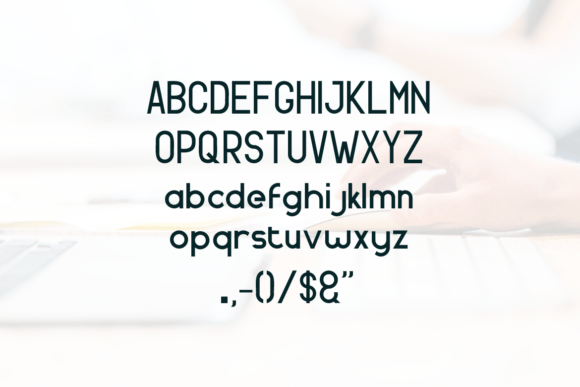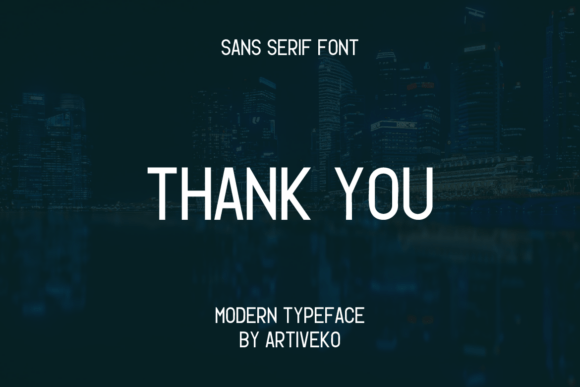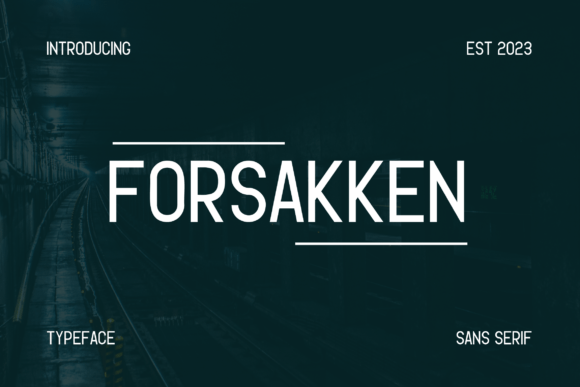
Forsakken Font: Unleash Drama and Boldness in Your Designs
In the realm of typography, a font can make or break the visual impact of a design. For designers and crafters seeking to inject drama and boldness into their work, Forsakken font emerges as a striking sans serif font that embodies modernity with a touch of mystery. Its unique blend of bold structure, sharp lines, and slightly unconventional shapes not only sets it apart but also gives it a distinct voice. In this article, we’ll dive deep into the world of Forsakken font, exploring its characteristics, uses, and the creative possibilities it unlocks.
The Essence of Forsakken Font
Forsakken is not just another addition to the sans serif family; it’s a game-changer. Its design is carefully crafted to exude confidence and a bit of an edgy vibe, making it perfect for projects that demand attention. The bold structure of Forsakken is its most defining feature, providing a solid foundation for any design. Coupled with sharp lines and a geometric precision, this font achieves a level of modern sophistication that’s hard to overlook.
What truly sets Forsakken apart, however, is its slightly unconventional shapes. These subtle deviations from the norm add a layer of intrigue and mystery, giving designers the ability to create works that are not only visually stunning but also thought-provoking. Whether it’s an album cover, a poster, a game title, or a fashion editorial, Forsakken brings a level of depth and complexity that’s sure to captivate audiences.
Applications of Forsakken Font
The versatility of Forsakken font is one of its most appealing qualities. Its bold and modern aesthetic makes it suitable for a wide range of applications. Here are some of the areas where Forsakken truly shines:
- Album Covers: Music and design often intersect, and Forsakken provides a typographic solution that’s both bold and expressive. Its ability to convey emotion and attitude makes it an excellent choice for album covers across various genres.
- Posters: For posters, impact is everything. Forsakken’s striking appearance ensures that your message is delivered with force, making it perfect for advertising, events, or informational posters.
- Game Titles: The gaming industry thrives on visuals and identity. Forsakken’s modern edge and bold structure make it an ideal choice for game titles, adding an element of excitement and challenge.
- Branding: For brands looking to make a statement, Forsakken offers a typographic solution that’s both memorable and impactful. Its unique voice can help brands differentiate themselves in a crowded market.
- Fashion Editorials: In fashion, style and trendsetters are paramount. Forsakken’s sleek and modern design makes it a natural fit for fashion editorials, adding a touch of sophistication and edge.
Tips for Using Forsakken Font Effectively
To truly harness the power of Forsakken, consider the following tips:
- Pair with Simplicity: Forsakken’s boldness can be overwhelming. Pair it with simpler fonts or design elements to create balance and harmony.
- Experiment with Colors: The font’s structure and lines lend themselves well to creative color choices. Experiment with gradients, contrasts, and monochromatic schemes to enhance its visual impact.
- Consider Context: While Forsakken is versatile, it’s essential to consider the context in which it’s used. Ensure that its boldness aligns with the message or brand identity you’re trying to convey.
Forsakken font is more than just a typographic choice; it’s a statement. Its modern edge, bold structure, and touch of mystery make it an invaluable tool for designers and crafters looking to add drama and boldness to their work. Whether you’re designing an album cover, a poster, a game title, or a fashion editorial, Forsakken offers a unique voice that’s sure to leave a lasting impression. By understanding its essence and applications, and by using it thoughtfully, you can unlock new creative possibilities and take your designs to the next level.